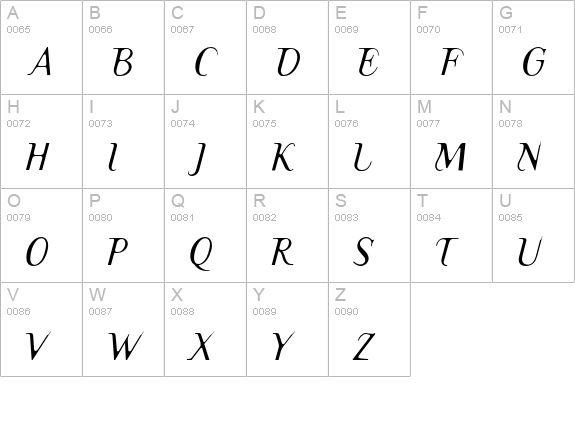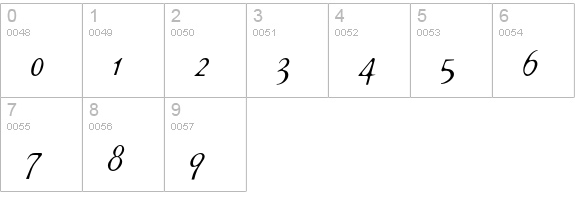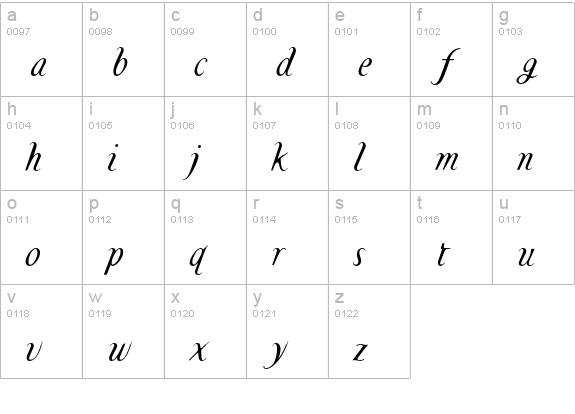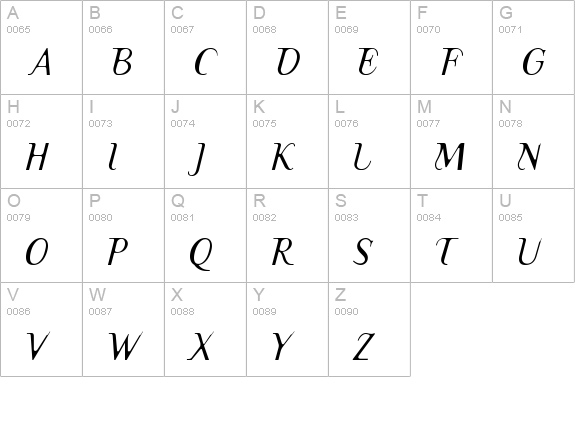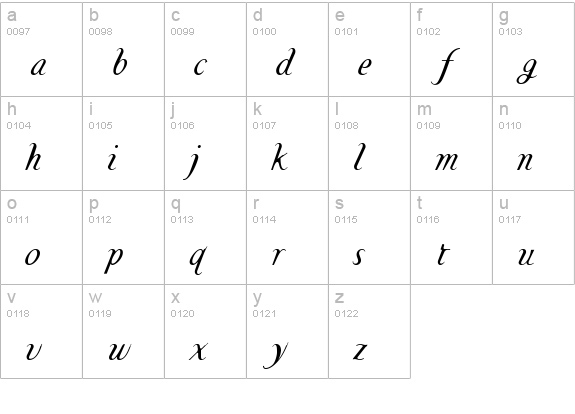
TemaCantante-Italic is a distinctive, italic variant in the TemaCantante typeface family \xE2\x80\x94 well suited to design and typography projects.
TemaCantante-Italic is a stunning and elegant font that brings a touch of sophistication to any design project. With its slanted and cursive letterforms, this font exudes a sense of grace and refinement. Every stroke of TemaCantante-Italic is meticulously crafted, creating a seamless flow of characters that effortlessly captivate the reader's attention. The italicized style adds a unique flair, making it perfect for projects that require a touch of elegance. One of the best things about TemaCantante-Italic is that it is freely available to download at FontsMarket.com. This means that you can easily access this beautiful font without any cost. Whether you're a professional designer or a hobbyist, you can now enhance your creations with this exquisite typeface without breaking the bank. TemaCantante-Italic is versatile and can be used in a wide range of design projects. From wedding invitations to branding materials, this font will elevate your designs and leave a lasting impression on your audience. Its readability and legibility also make it suitable for both print and digital mediums. The attention to detail and the careful balance of each letterform in TemaCantante-Italic make it a truly remarkable font. Its timeless appeal and classic charm will never go out of style, making it a valuable addition to any font collection. So, if you're looking for a font that combines elegance, sophistication, and affordability, look no further than TemaCantante-Italic. Download this stunning typeface for free at FontsMarket.com and let your creativity soar to new heights.